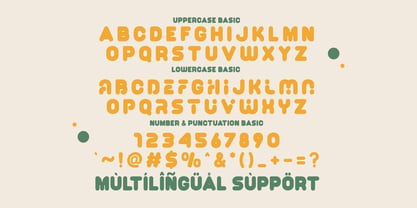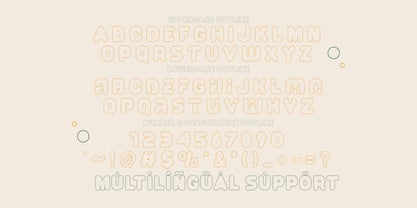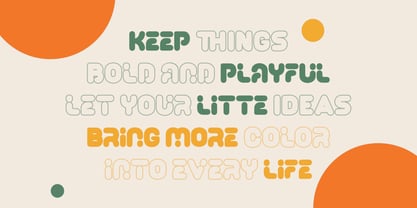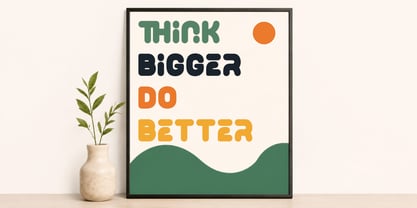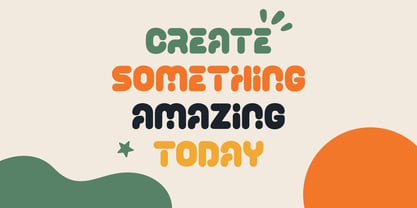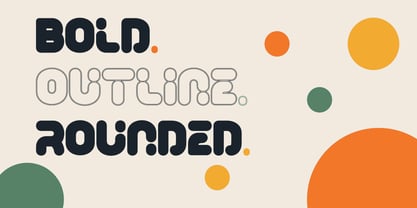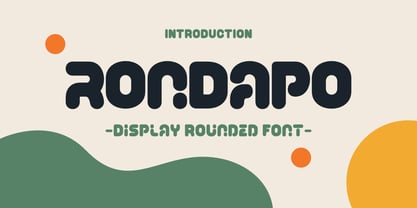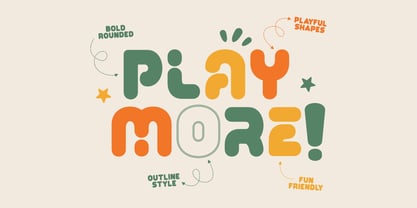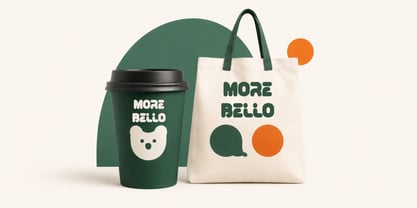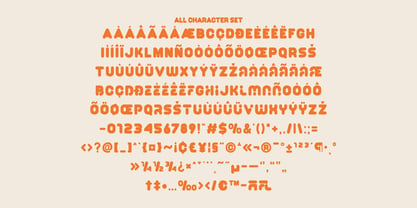
Rondapo
von Qiubare Studio
Die Schriftfamilie Rondapo wurde von Michael Everson entworfen und von Qiubare Studio veröffentlicht. Rondapo enthält 2 Stile und Familienpaketoptionen. Mehr über diese Familie
Rondapo is a bold and playful rounded display typeface that infuses a friendly, expressive, and cheerful personality into your designs. Its soft curves, chunky proportions, and distinctive rounded details create a memorable visual style that feels modern and approachable.
Ideal for attention-grabbing typography, Rondapo excels in branding, packaging, posters, social media graphics, children's projects, apparel, stickers, and other creative applications where personality is key.
Designer: Michael Everson
Foundry: Qiubare Studio